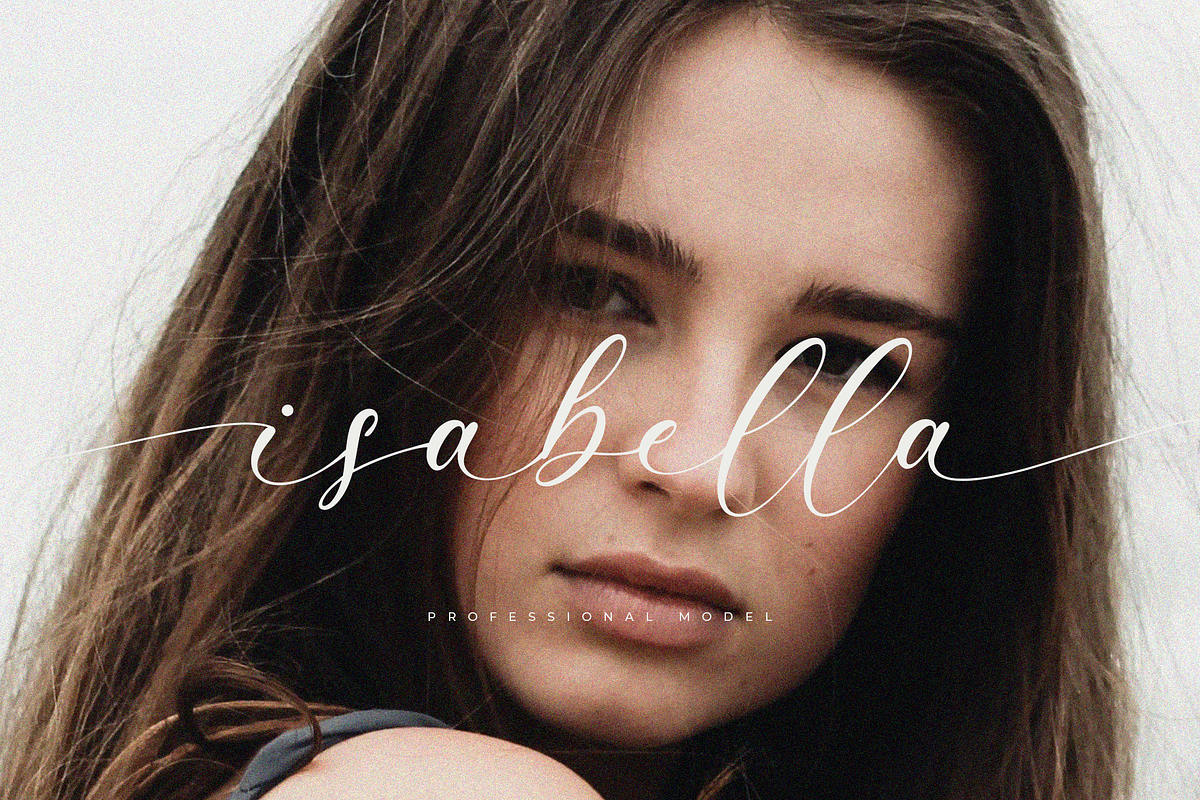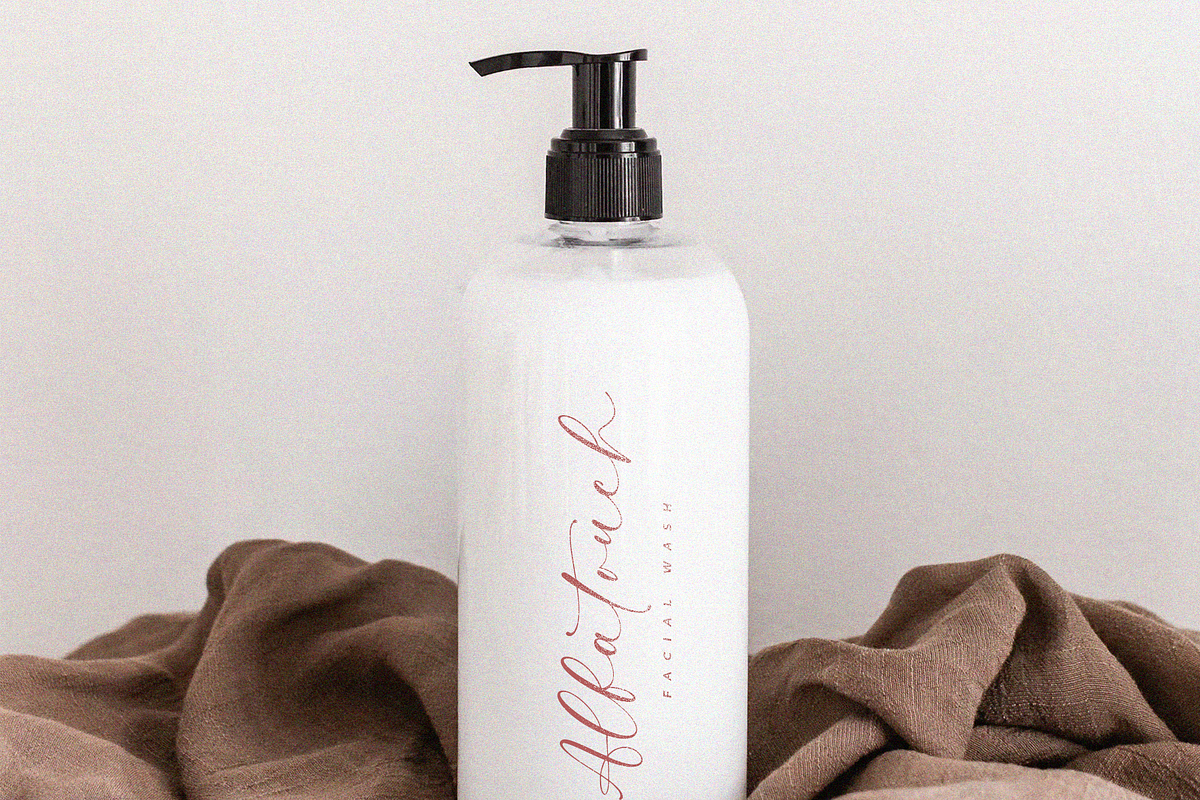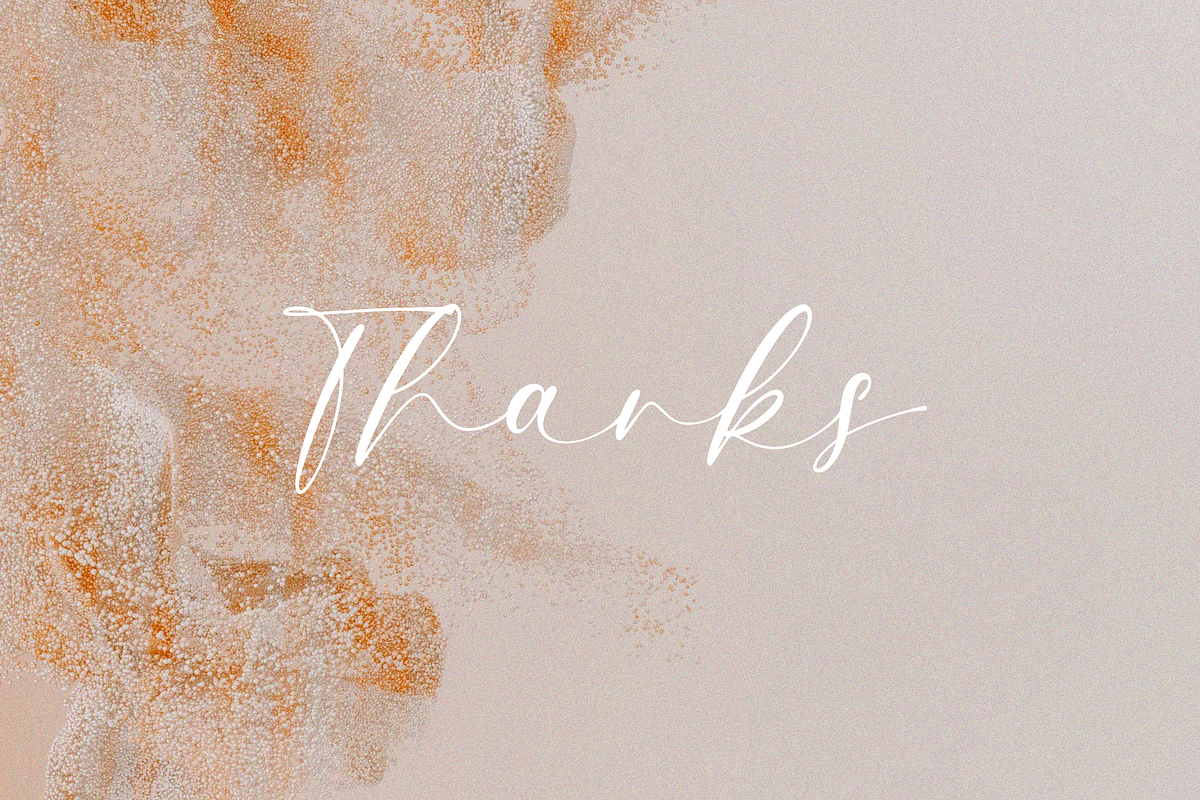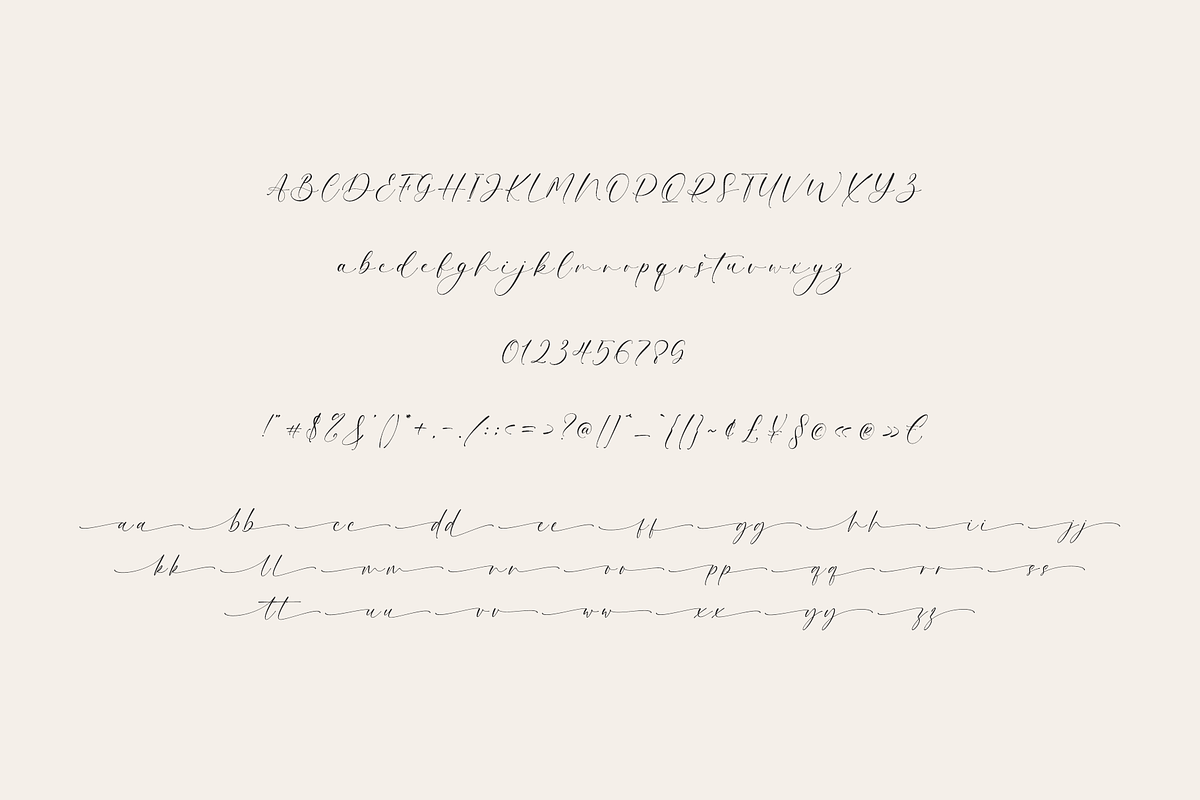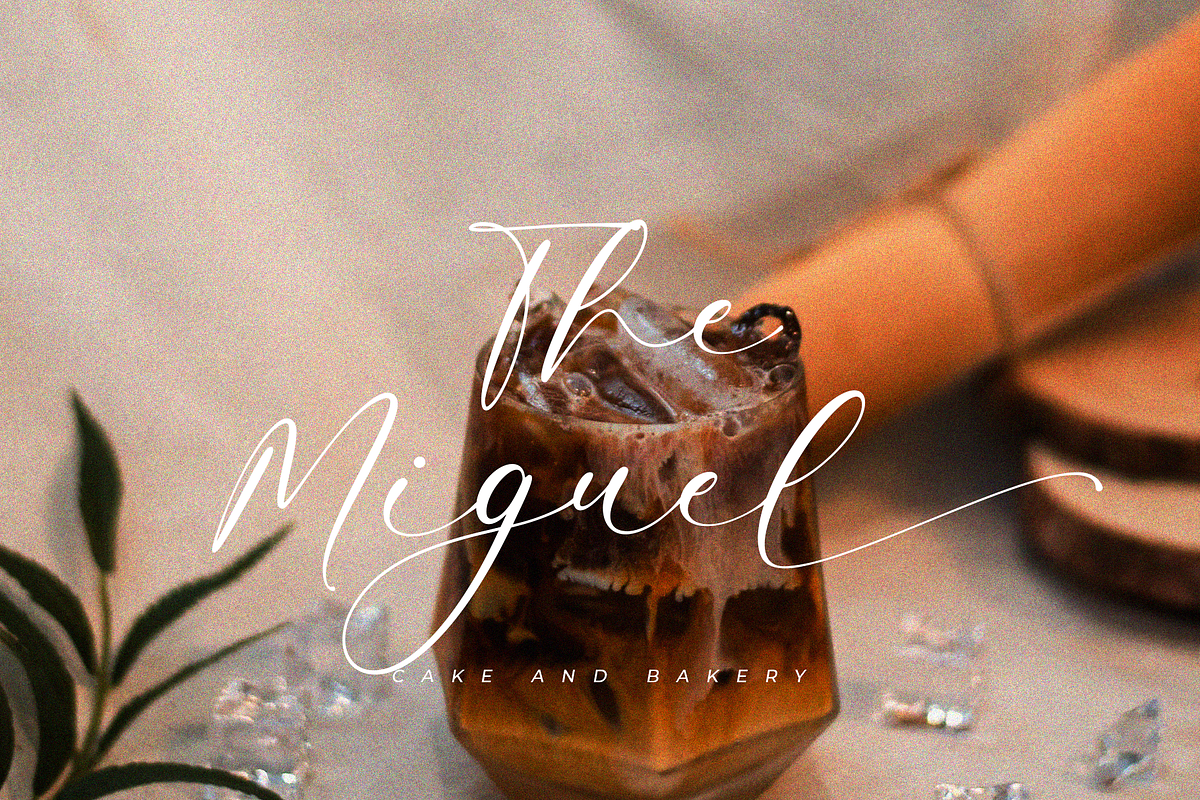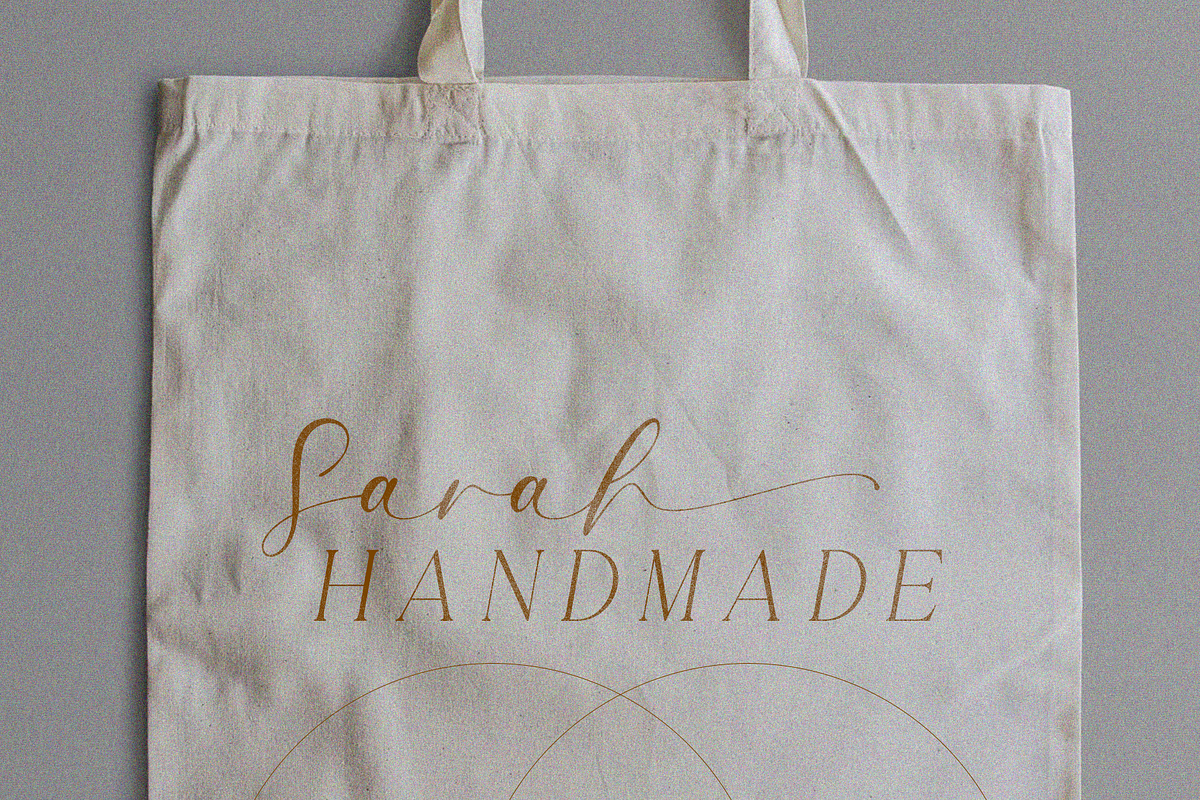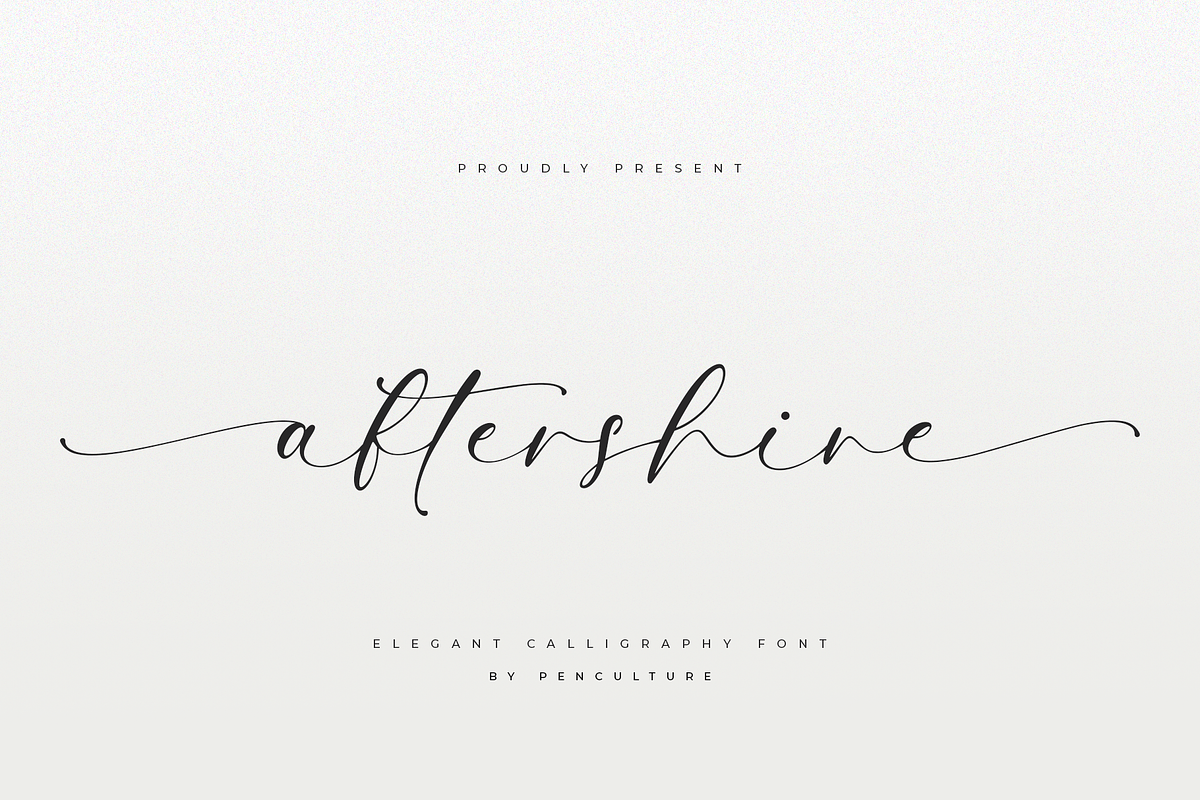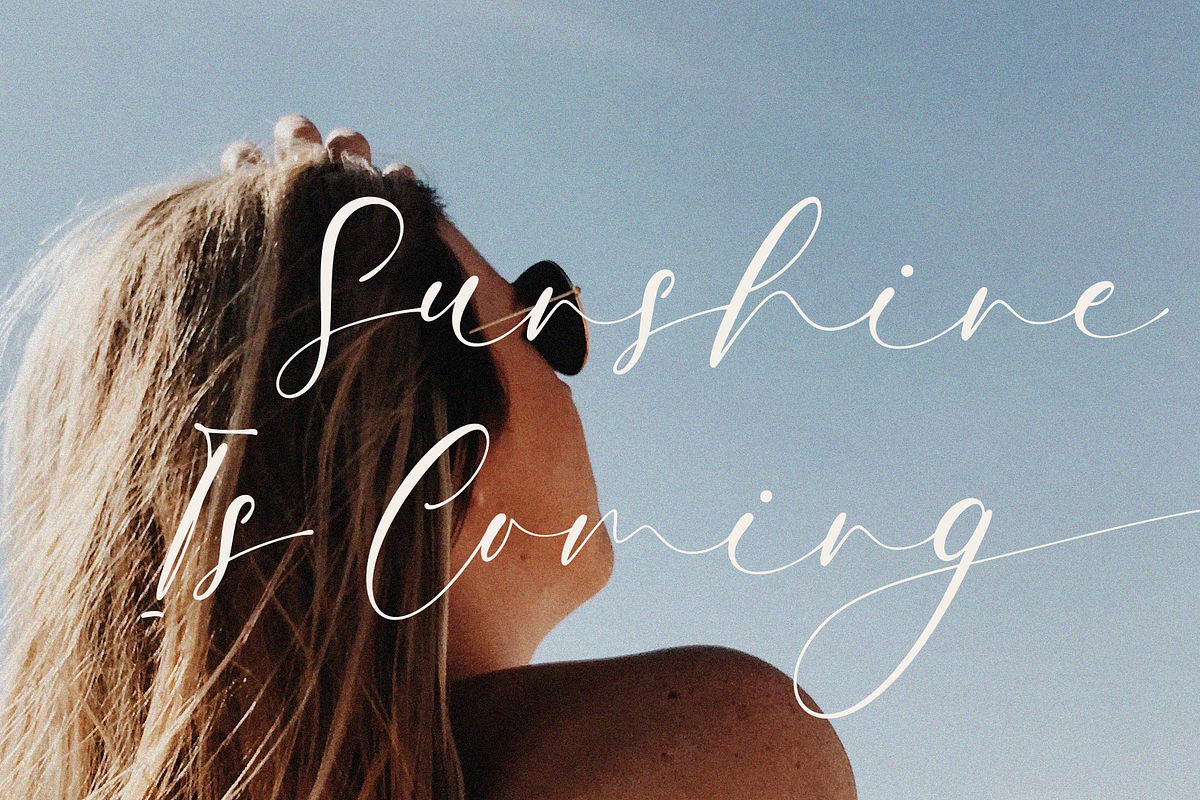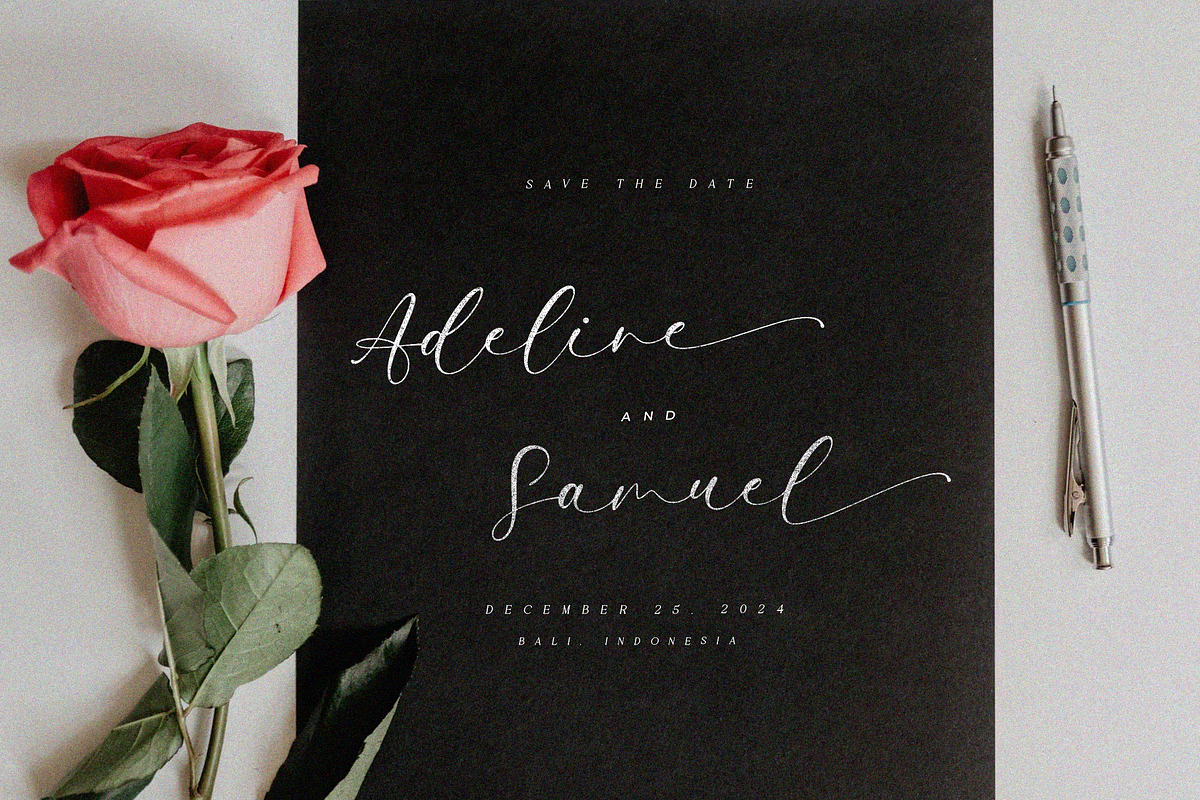
Aftershine Elegant Calligraphy Font
Introducing Aftershine, a stunning script calligraphy font that brings elegance and a personal touch to your designs. Crafted with precision, Aftershine is designed to flow seamlessly, featuring beautiful ligatures and graceful beginning and ending tails that enhance the natural hand-lettered look.
Perfect for invitations, branding, social media posts, and romantic designs, Aftershine blends the timeless art of calligraphy with modern flair. Its smooth, flowing curves and sophisticated character set make it ideal for projects that need a touch of elegance and refinement.